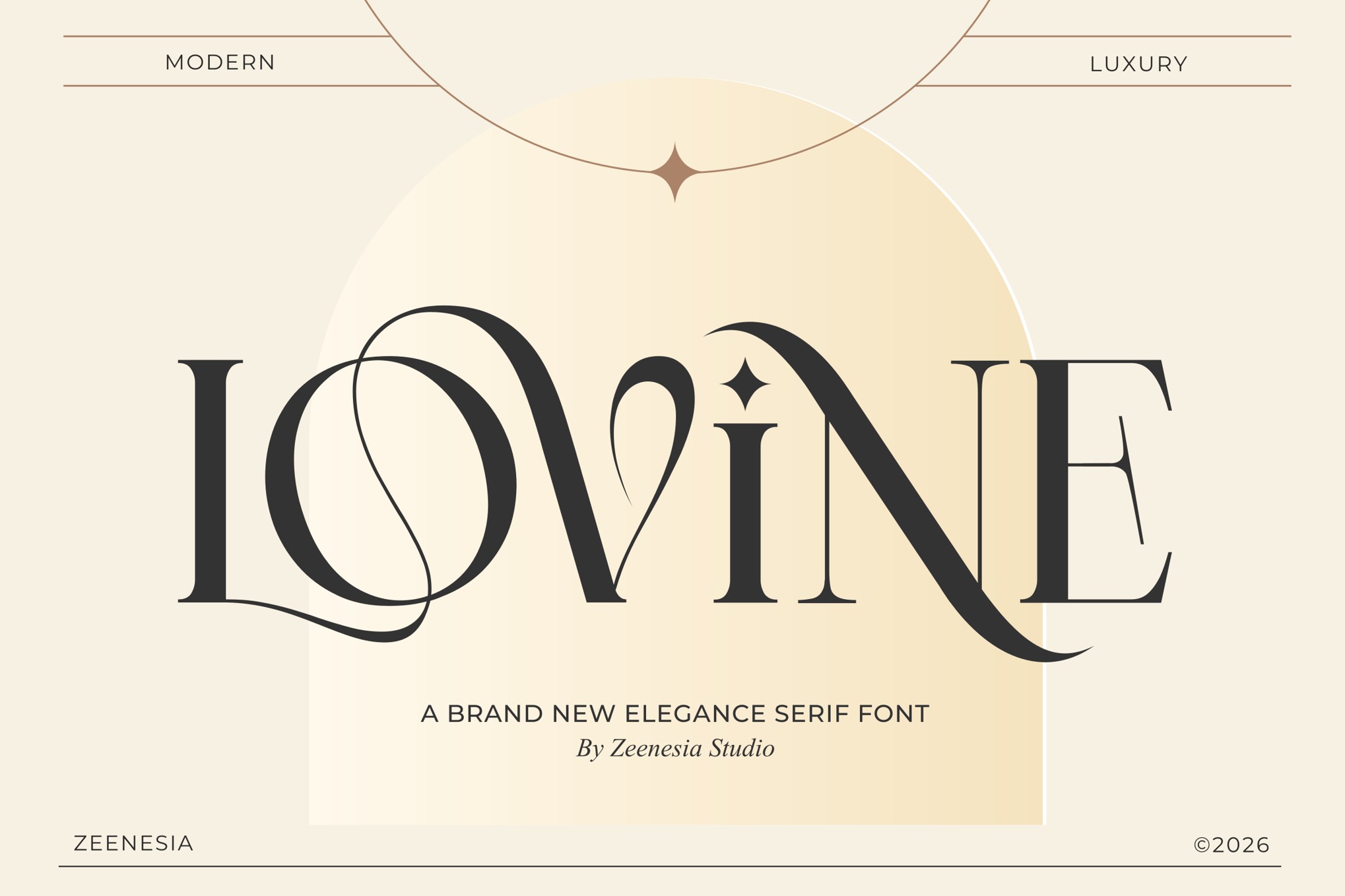
Lovine – Elegance Serif Font
Lovine – Elegance Serif Font brings a balanced structure and contemporary look, making it suitable for both digital and print design. Lovine is a modern luxury serif typeface that embodies elegance, sophistication, and timeless beauty. Designed with graceful curves and striking high-contrast strokes, Lovine brings a perfect harmony between classic refinement and contemporary flair.
Its distinctive letterforms feature flowing swashes and delicate details, making it ideal for high-end branding, fashion editorials, logos, wedding invitations, and premium packaging. The artistic ligatures and stylish alternates add a unique personality, allowing designers to create truly standout typography.
Lovine is more than just a font—it’s a statement of style, romance, and luxury. Perfect for those who want to elevate their designs with a touch of graceful charm and modern elegance.